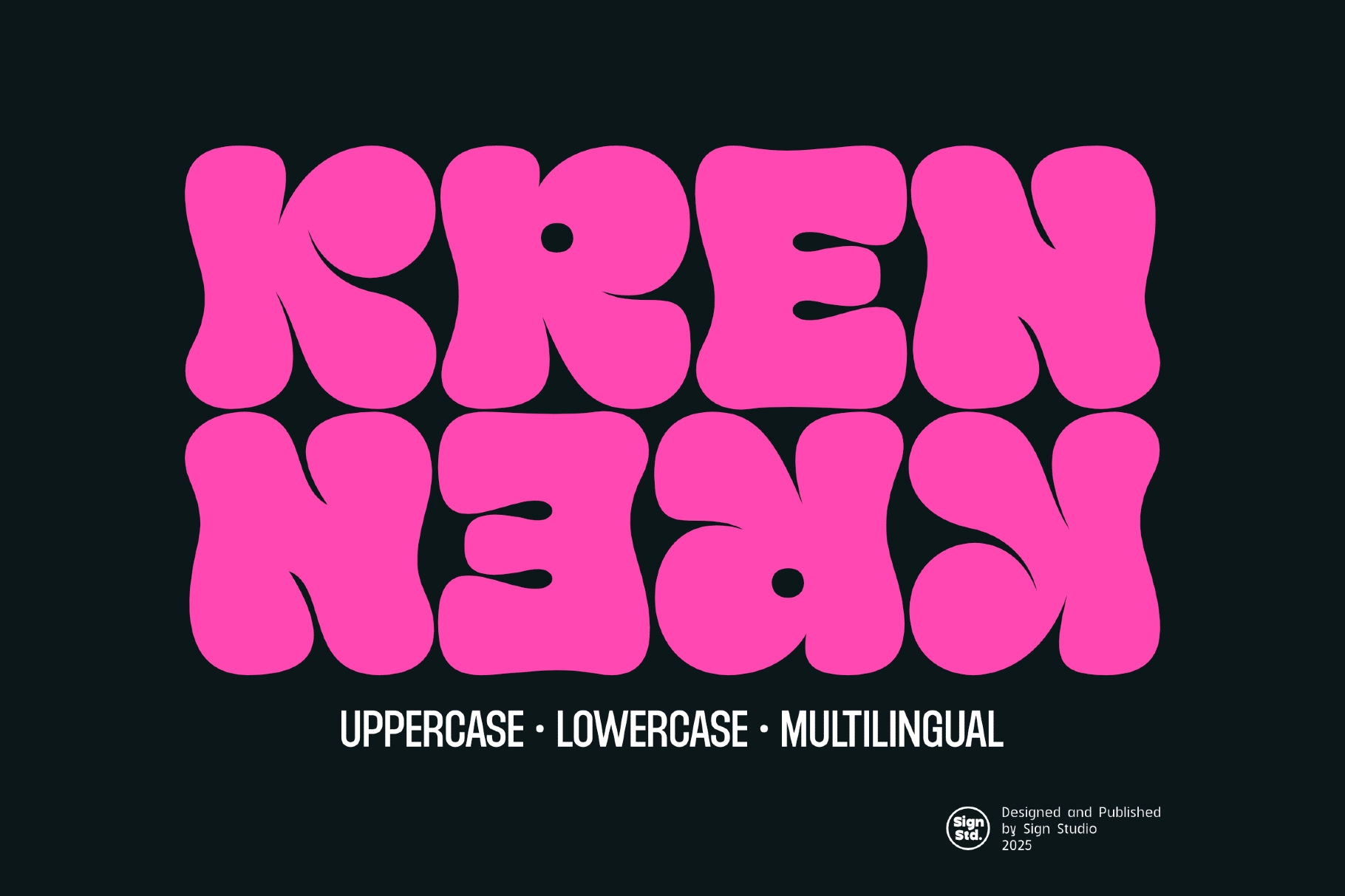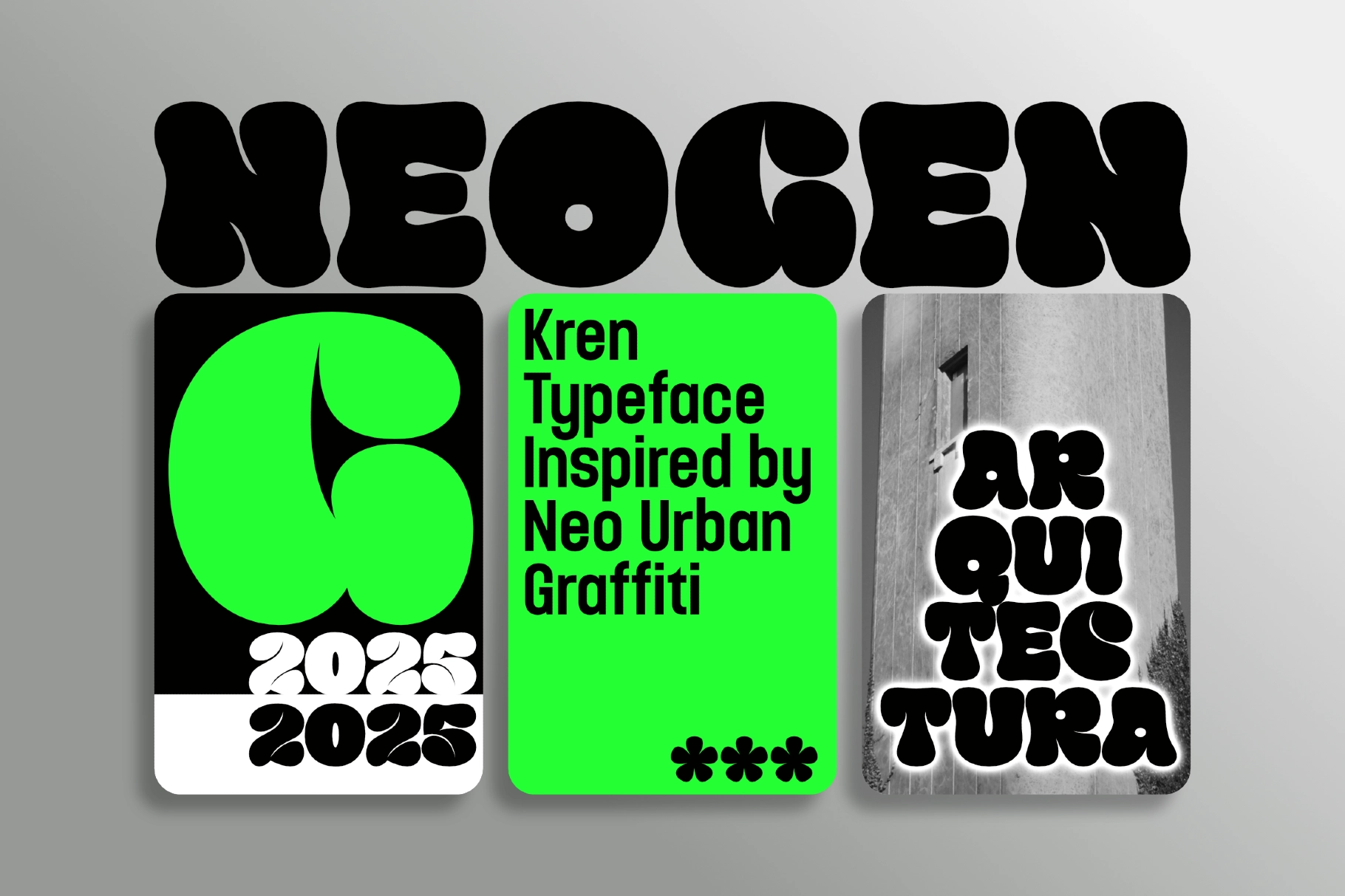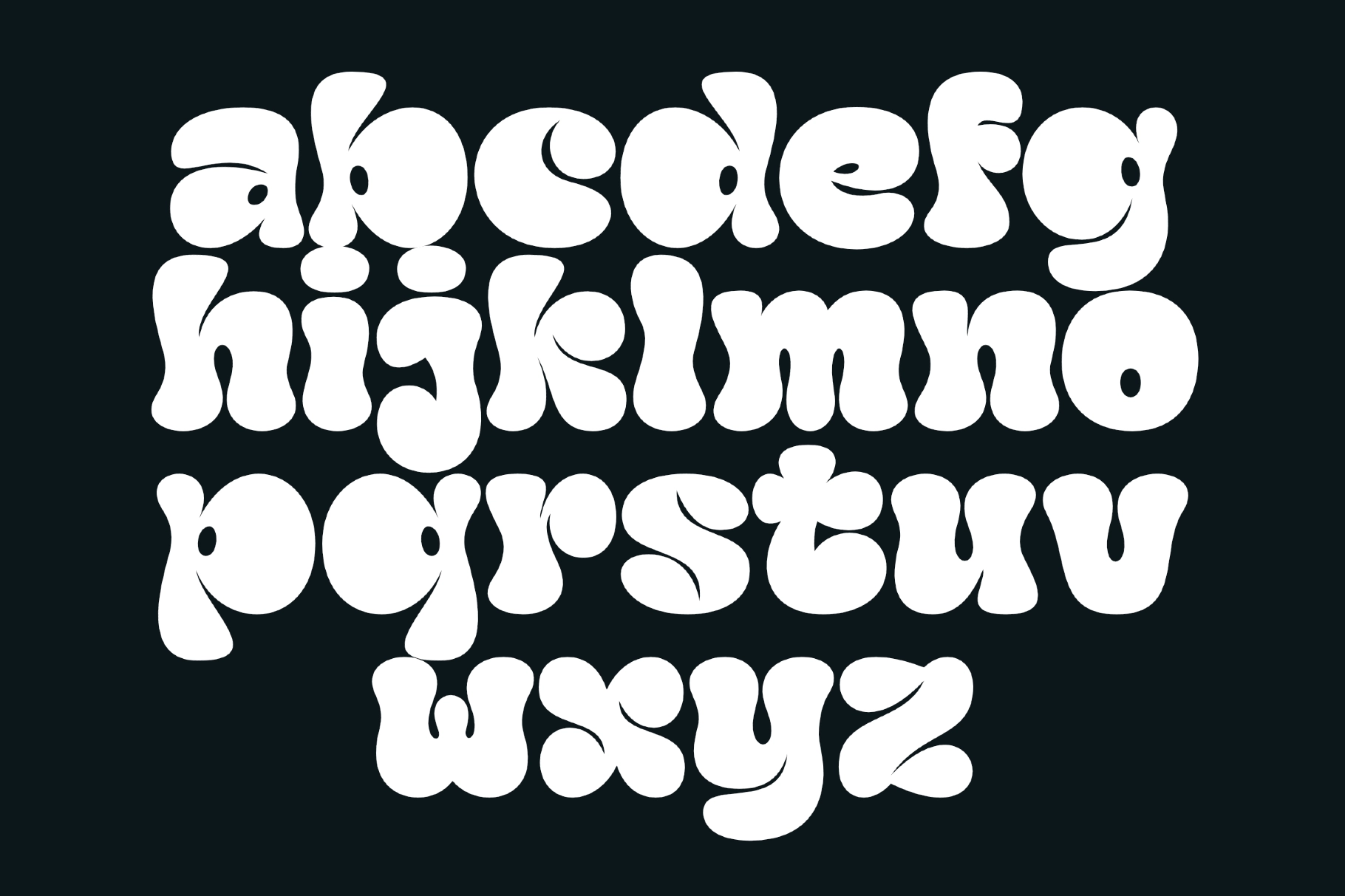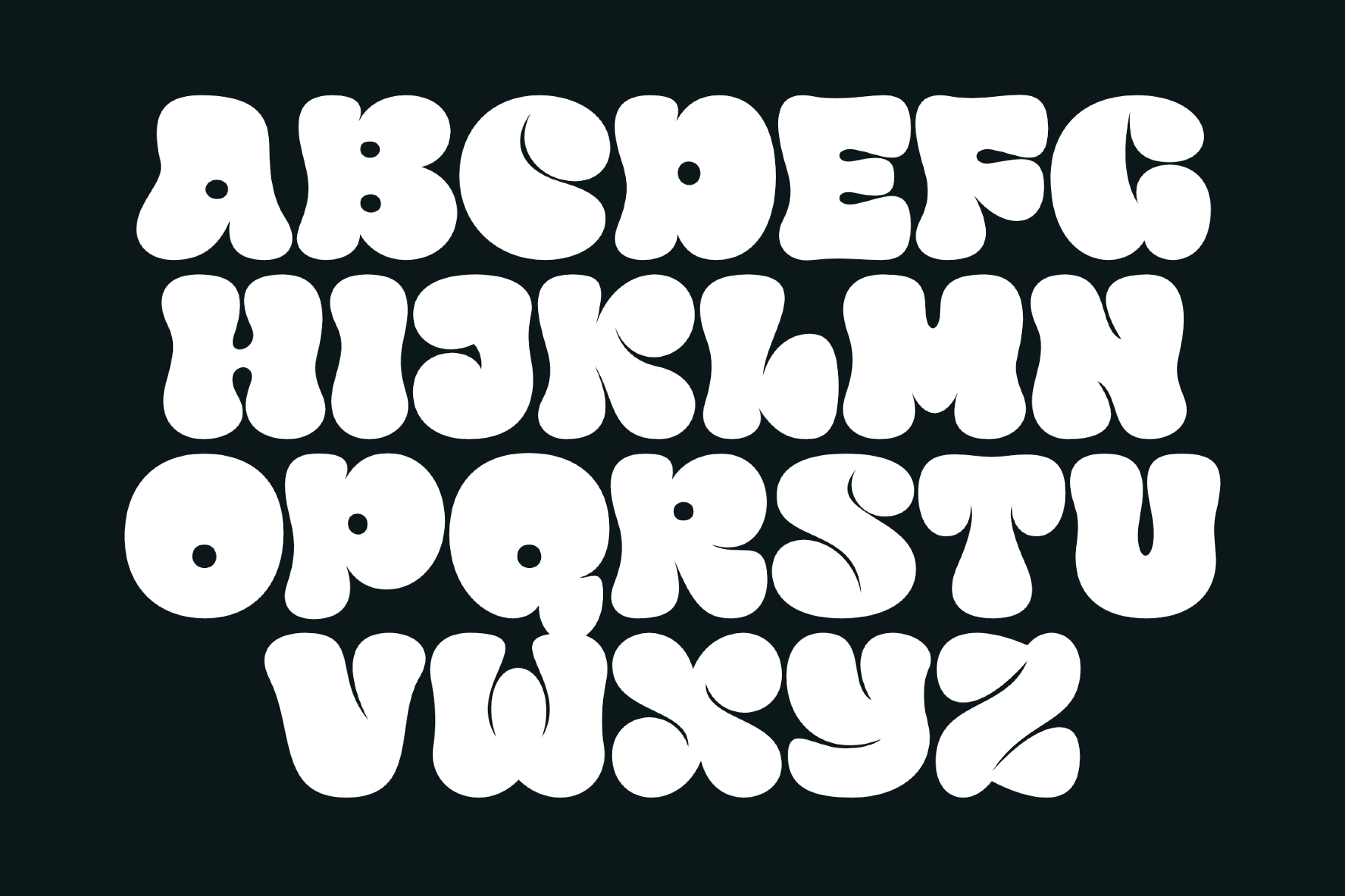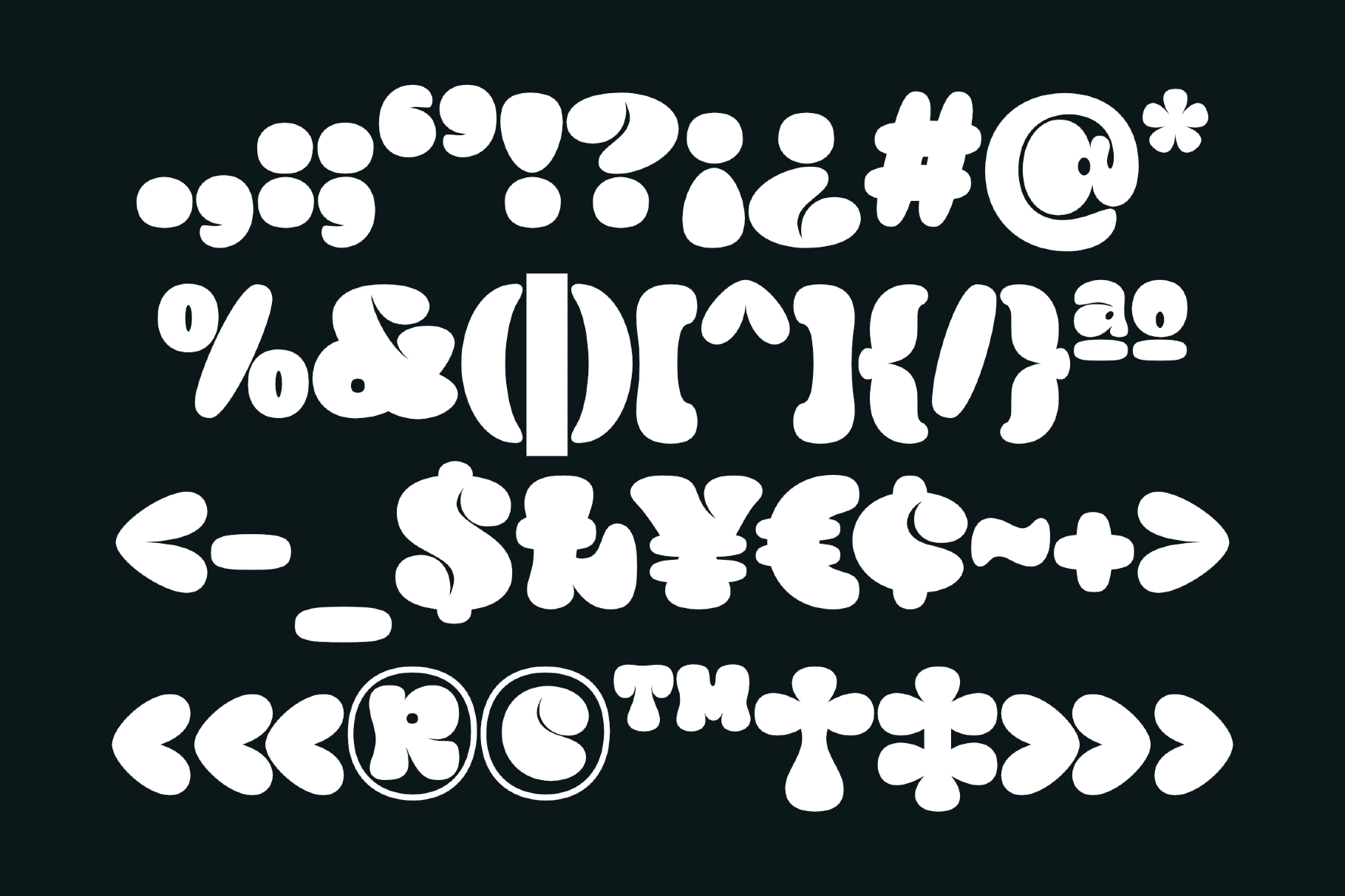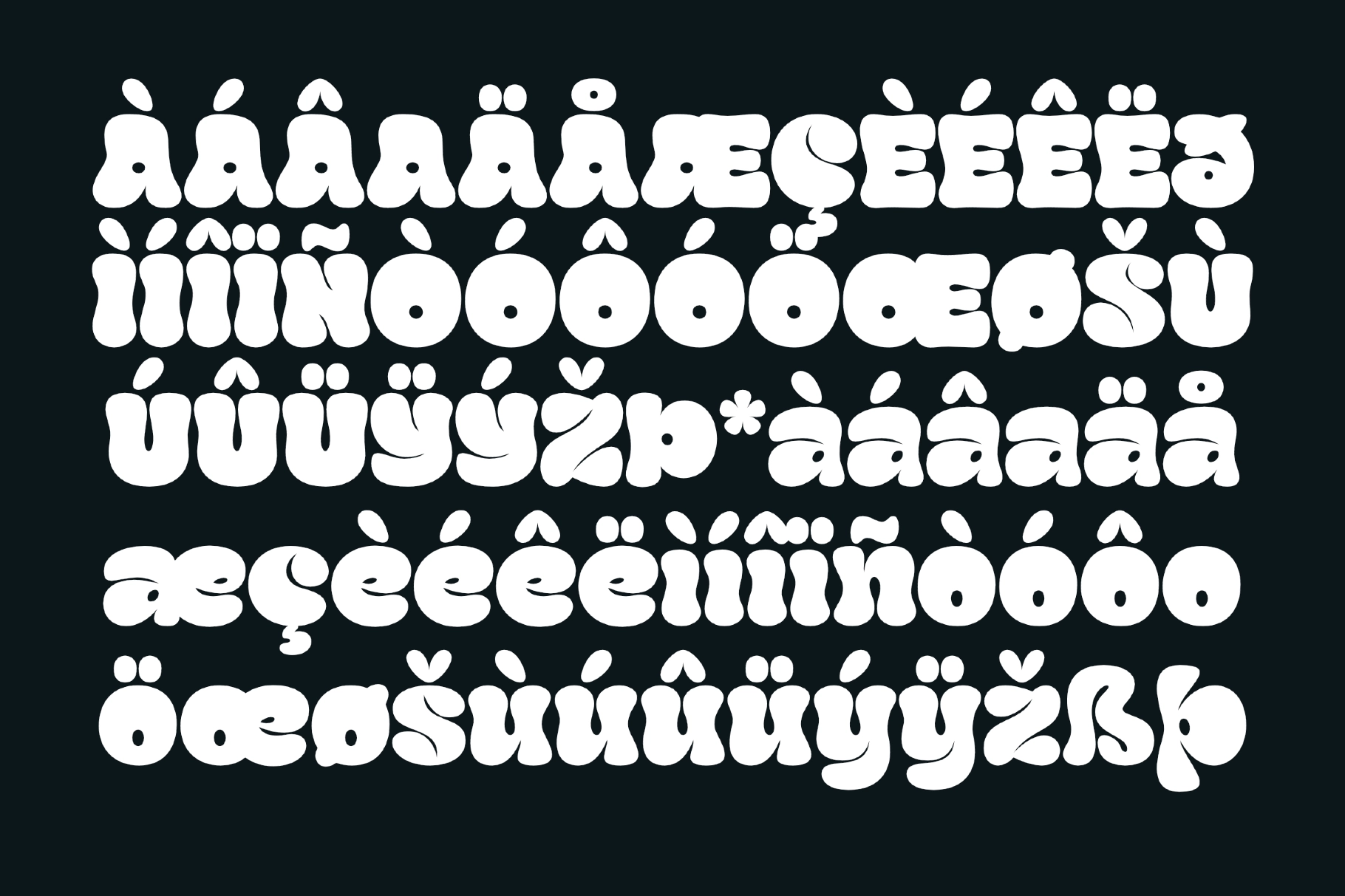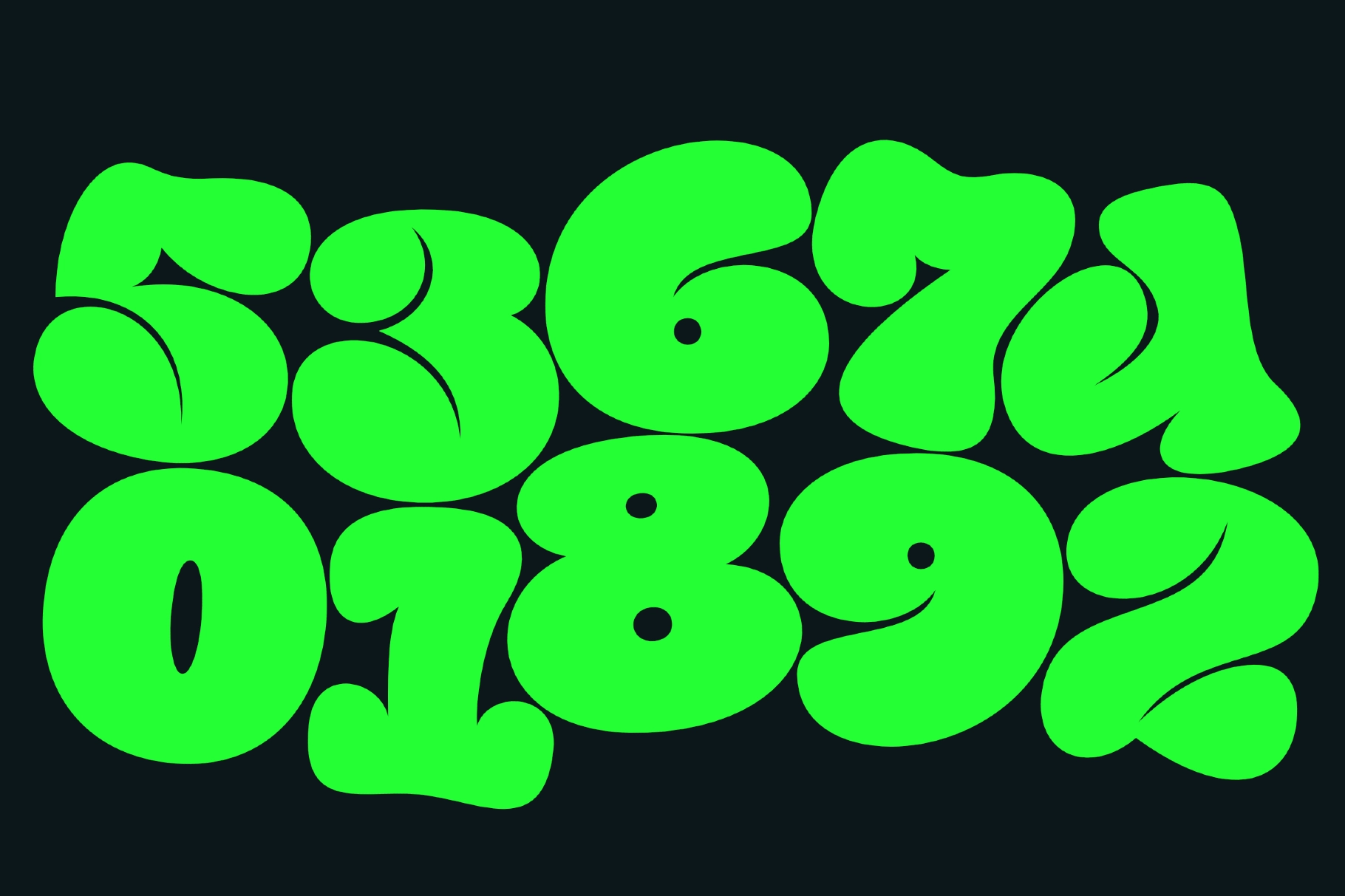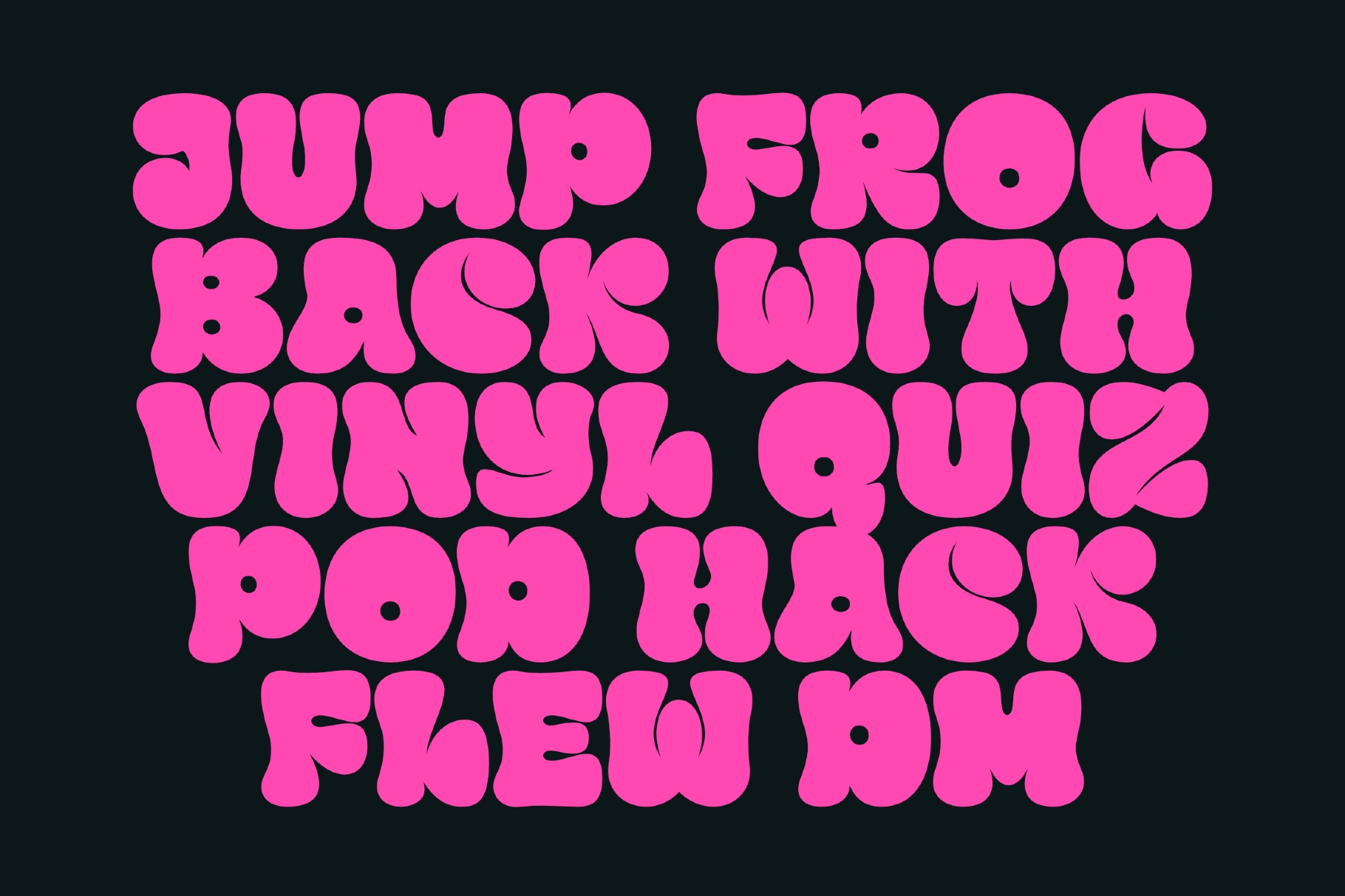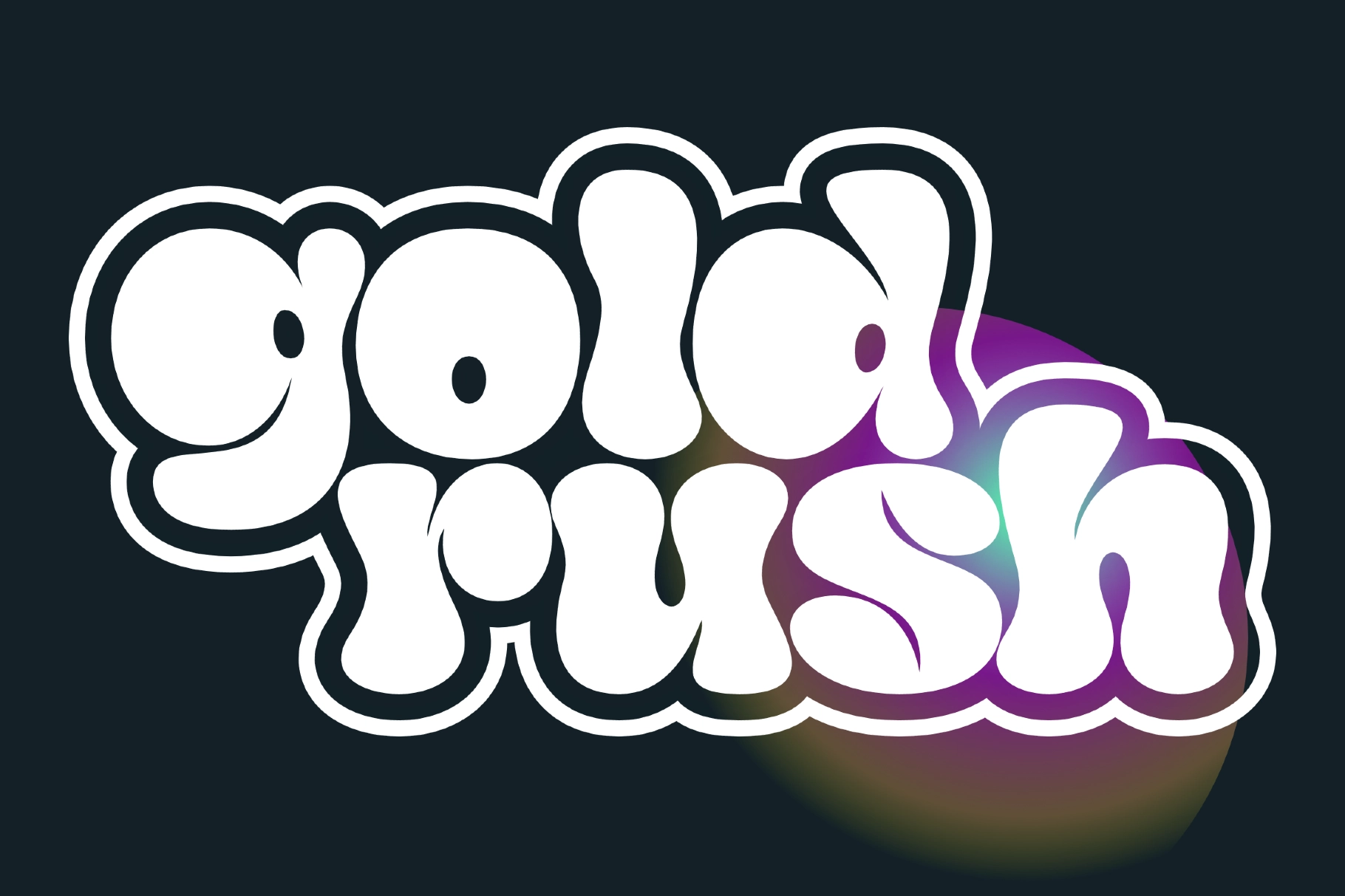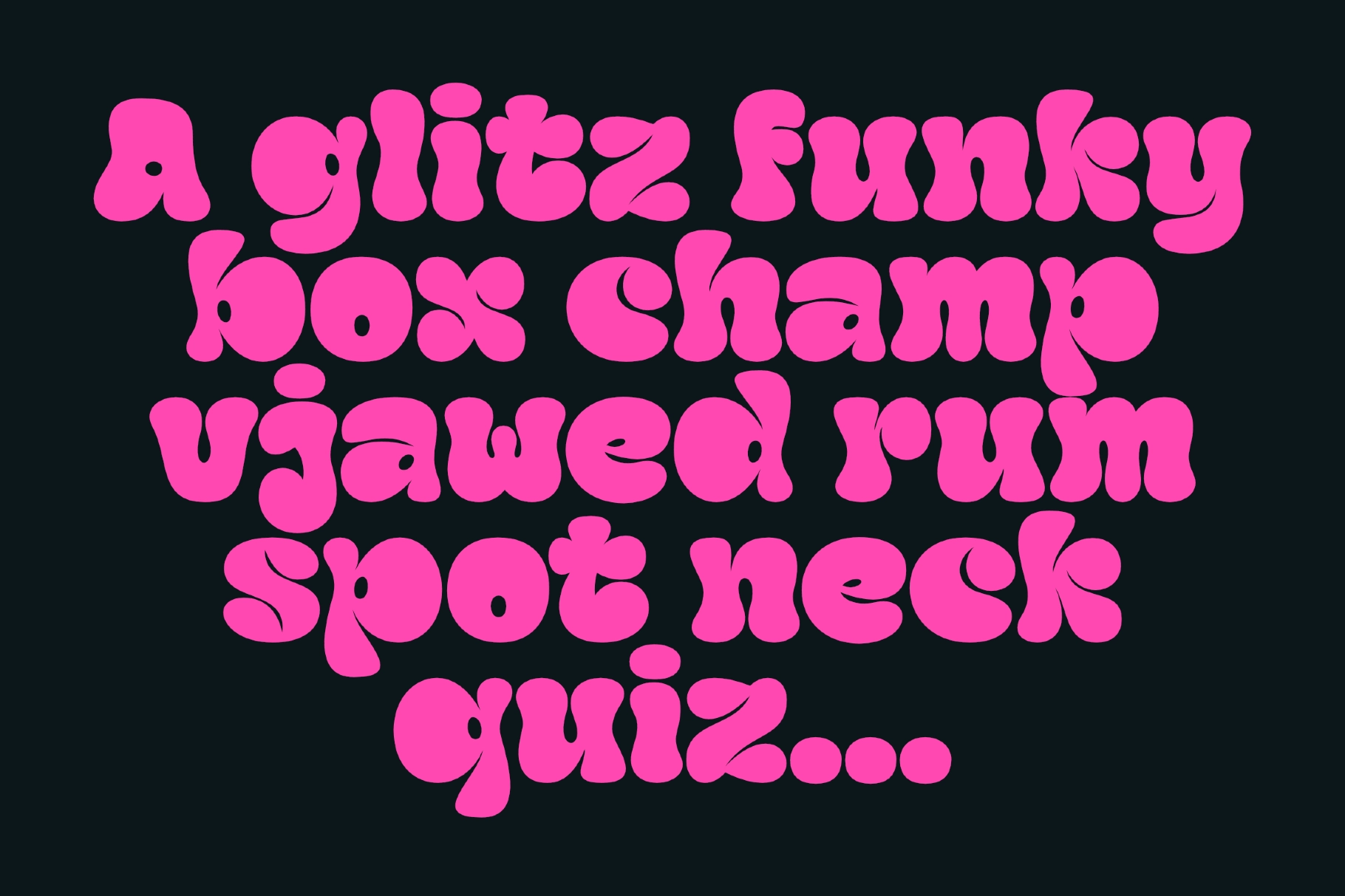
Kren - Graffiti Bubble Font
Kren
This graffiti font has chunky bubble forms, tight curves, and a loud street-style attitude made for display typography. Its bold shapes are rounded, expressive, and packed with visual punch, giving short words and headlines a playful urban character.